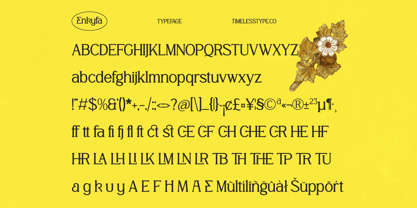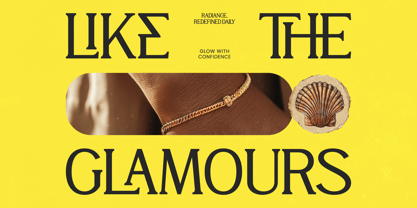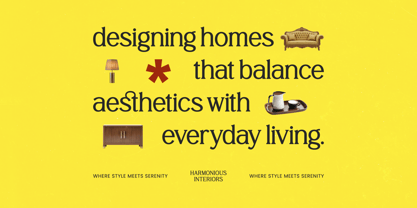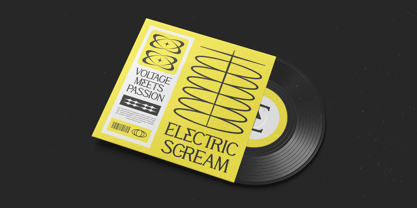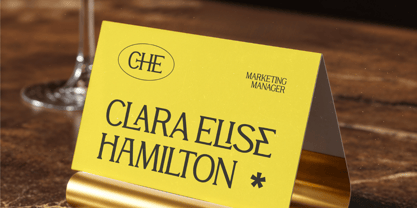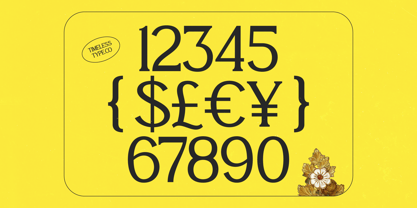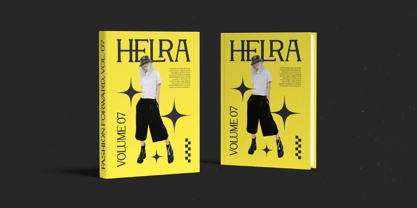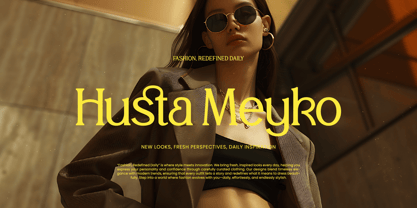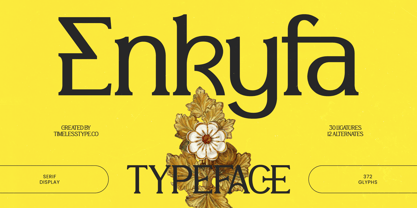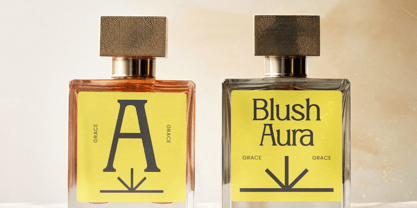
Enkyfa
Die Schriftfamilie Enkyfa wurde von Heru Utama Putra entworfen und von Timelesstype Studio veröffentlicht. Enkyfa enthält 2 Stile und Familienpaketoptionen. Mehr über diese Familie
Enkyfa – Serif Display Typeface is a masterclass in modern serif design, blending classical proportions with avant-garde flair. This high-contrast typeface commands attention with its sharp serifs and refined letterforms, offering a visual language that is both authoritative and artistic. Designers will find Enkyfa – Serif Display Typeface an indispensable asset for creating striking headlines and memorable visual identities.
Designed for high-impact visual storytelling, this typeface is perfectly suited for luxury branding, high-end packaging, and editorial design. Whether utilized for magazine mastheads or premium logo design, Enkyfa – Serif Display Typeface ensures your message is delivered with unmatched clarity and artistic grace. Its collection of 30 ligatures and 12 alternates allows for bespoke typography, making it the ideal choice for projects requiring a couture aesthetic.